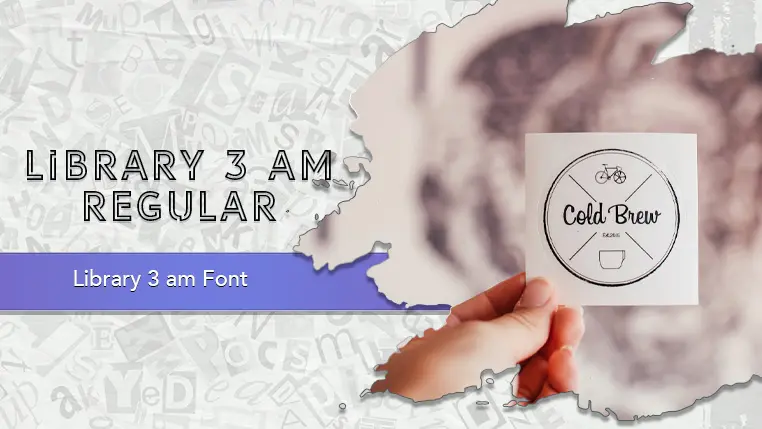
The Library 3 am font family may be ideal for you if you enjoy working on an artistic design project. The lively, expressive look of this typeface, which was created by Igor Kosinsky, makes it ideal for Logos, Branding and Print Media. Perfect for magazine covers, book titles, film titles, and website headers to grab attention. Also its outlined nature can mimic the look of neon signs, making it ideal for certain types of physical signage. and other light-hearted visual projects.
Regular are the one primary font styles of the Library 3 am font family. You may build dynamic, visually appealing text layouts with the distinct flair that each style offers. With crisp, readable lines and a relaxed tone.